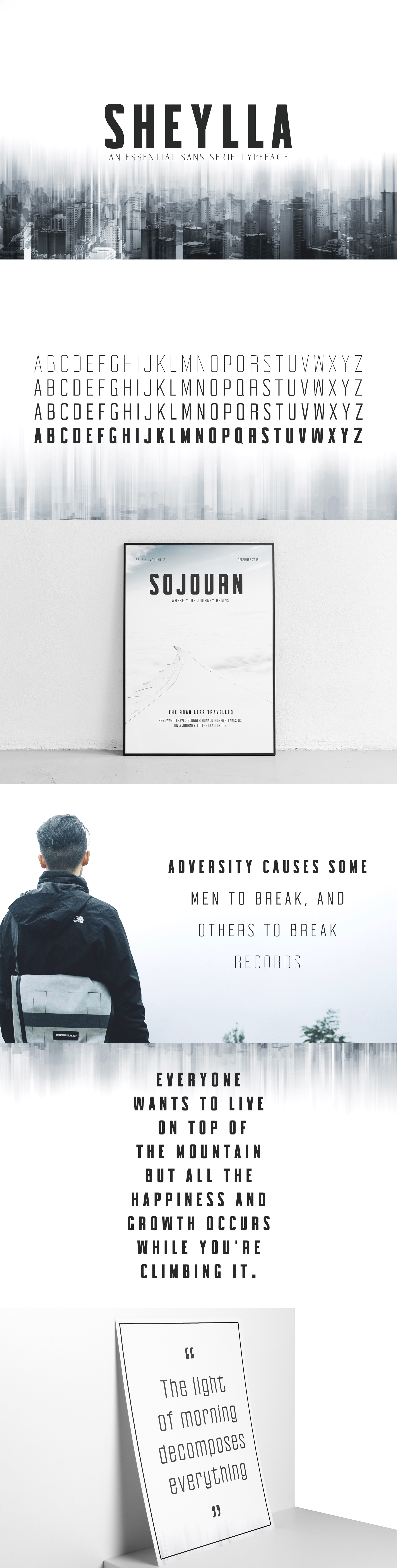
Sheylla Sans Serif Typeface
Sheylla Sans Serif Typeface is a clean and simple geometric font in 4 weights. It can be used to create great works on logos, texts, presentations, posters, magazines, notices, titles, name card, magazine, web layouts, invitations, headers, branding and other any business related.
- Font Weight: Regular, Thin, Light, and Bold
- Uppercase Multilingual Letters
- Lowercase Multilingual Letters
- Non English Characters ( Latin Extended A )